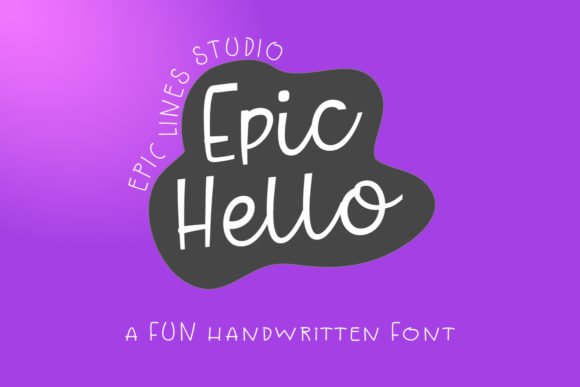
When a Font Speaks Volumes
We’ve all been there – staring at a blank page, trying to find the perfect words to convey our message. Sometimes, it’s not about what we’re saying, but how we’re saying it. For designers and creatives, the right font can make all the difference. It’s the spark that ignites the imagination, the confidence that makes a statement, and the friendliness that puts people at ease.
Enter the Epic Hello Font, a casual and friendly script that’s designed to do just that. With its easygoing and smooth feel, it’s the perfect addition to any design project. Whether you’re creating a greeting card, a social media post, or a website, the Epic Hello Font is sure to bring a smile to your audience’s face. And for designers, it’s a valuable tool that can elevate their work and make it stand out in a crowded digital landscape.
Epic Hello Font Key Features
- Font Family: Epic Hello Font is a unique, hand-drawn font family that combines elegance and playfulness.
- Unique Characteristics: Features a range of custom-designed characters, including ligatures, swashes, and alternates, to add a touch of personality to your designs.
- Language Support: Supports a wide range of languages, including Latin, Cyrillic, and Greek alphabets, making it suitable for global branding and marketing efforts.
Epic Hello Font Review
As a designer, I’ve had the chance to work with a lot of fonts, but the Epic Hello Font caught my attention. Here’s my honest review:
- The font’s unique blend of modern and vintage elements makes it stand out in a crowded market.
- The bold and playful feel is perfect for headlines and titles, grabbing the reader’s attention.
- The font’s versatility allows it to work well in a variety of designs, from digital to print.
- The font’s ligatures and kerning are well-designed, making it easy to read and visually appealing.
- The font’s irregularities can make it difficult to read in smaller sizes, particularly in body text.
- The font’s playfulness can sometimes feel overwhelming, making it challenging to balance with other design elements.
The Epic Hello Font is a great choice for designers looking to add a unique touch to their designs. While it has some limitations, its versatility and bold feel make it a great option for headlines, titles, and other design elements that need to stand out. However, it may not be the best choice for body text or designs where readability is a top priority.
The Epic Hello Font is perfect for:
- Creating bold and attention-grabbing headings.
- Adding a touch of elegance to wedding invitations and stationery.
- Designing motivational posters and quotes.